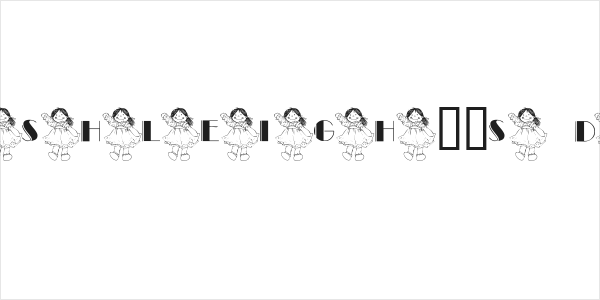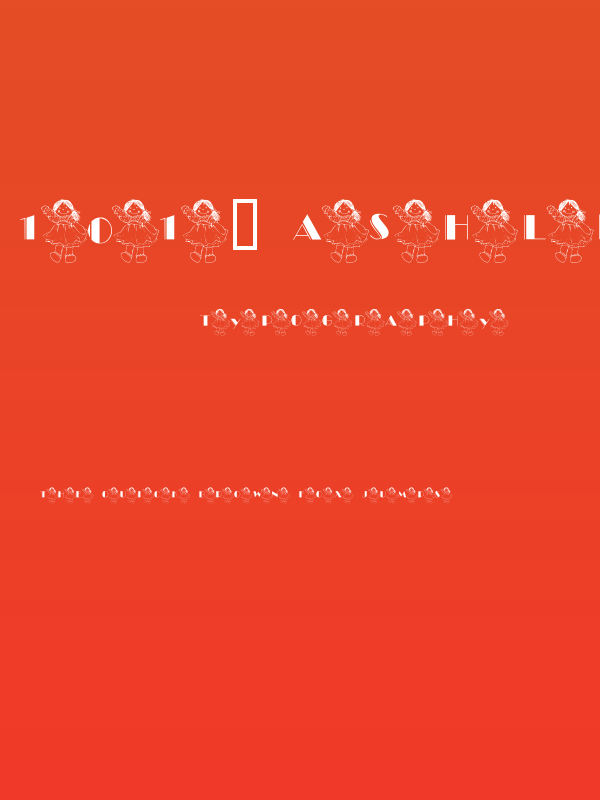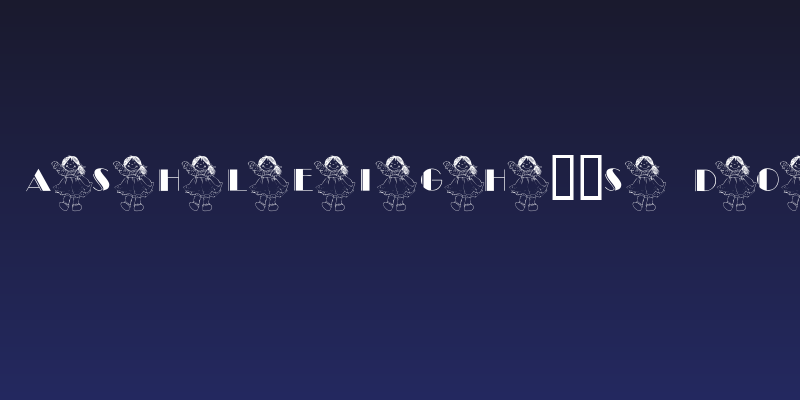
101! Ashleigh's Dolly Font
101! Ashleigh's Dolly Description
This font features a playful and whimsical design, incorporating a doll illustration with each character. The letters are bold and clear, making them easily readable despite the decorative element. The uppercase and lowercase letters maintain a consistent style, with the doll adding a unique charm to each character. The numbers follow the same playful theme, ensuring uniformity across all characters. The special characters are enclosed in a bold, rectangular outline, adding a distinct touch to the overall design.
| Overall Style | Whimsical |
| Use Case | Logos, Children's books, Invitations |
| Proposed Projects | Ideal for children's books, playful branding, or any project requiring a whimsical and fun aesthetic. |